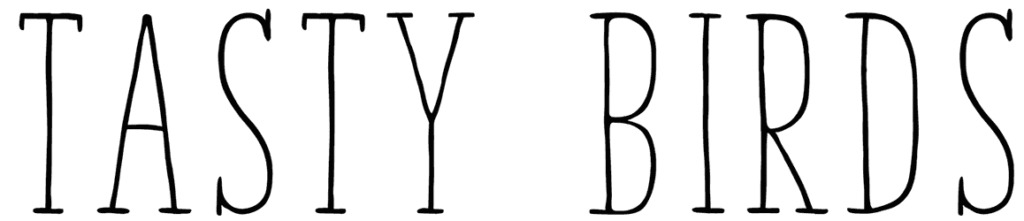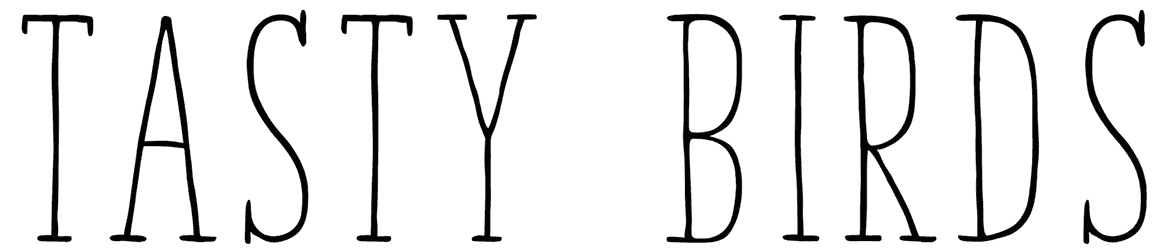
Tasty Birds Font
Designed byYoussef Habchi
We believe that beauty comes with simplicity, if you have a common opinion, we would like to offer a glamorous serif font such as Tasty Birds to you.
The good news about this artwork is that it comes in five distinctive weights and broadens your horizons in the middle of designing presentations, book covers, business cards, diplomas, or formal documents. It would be better to overlook the lack of lowercase letters and make the best possible outcome out of it.